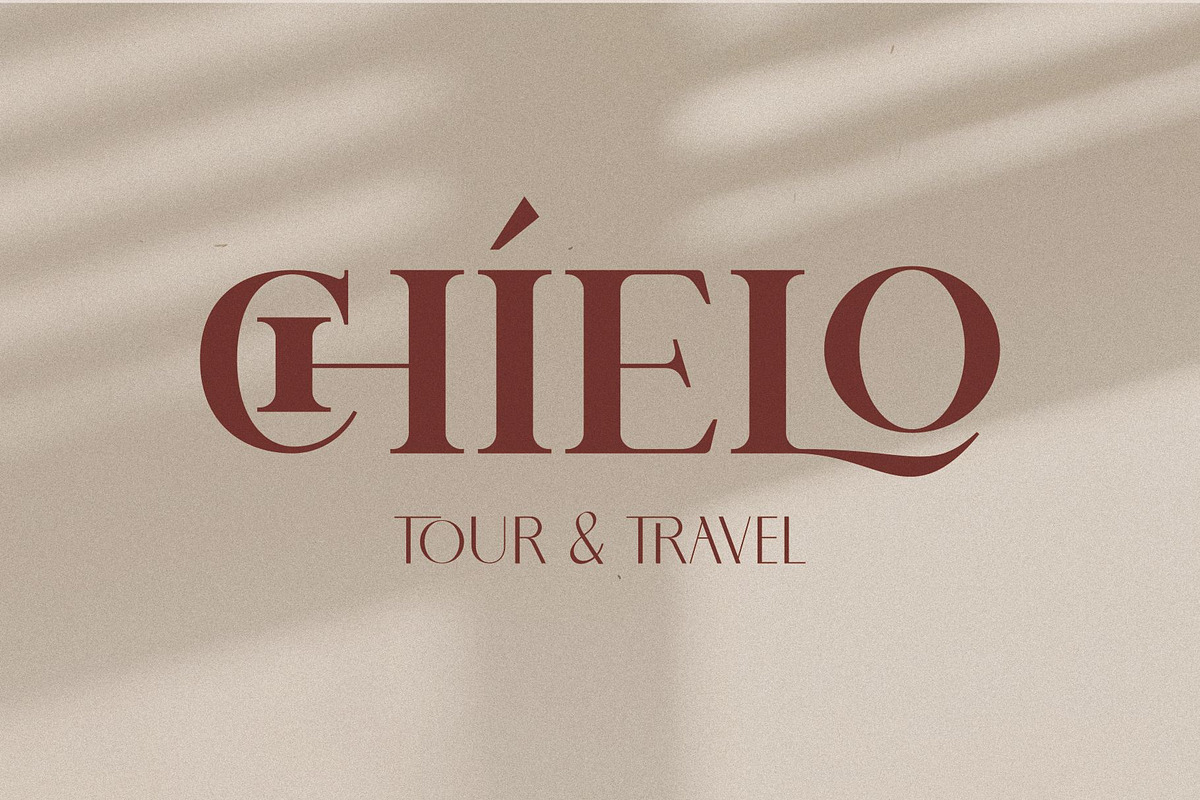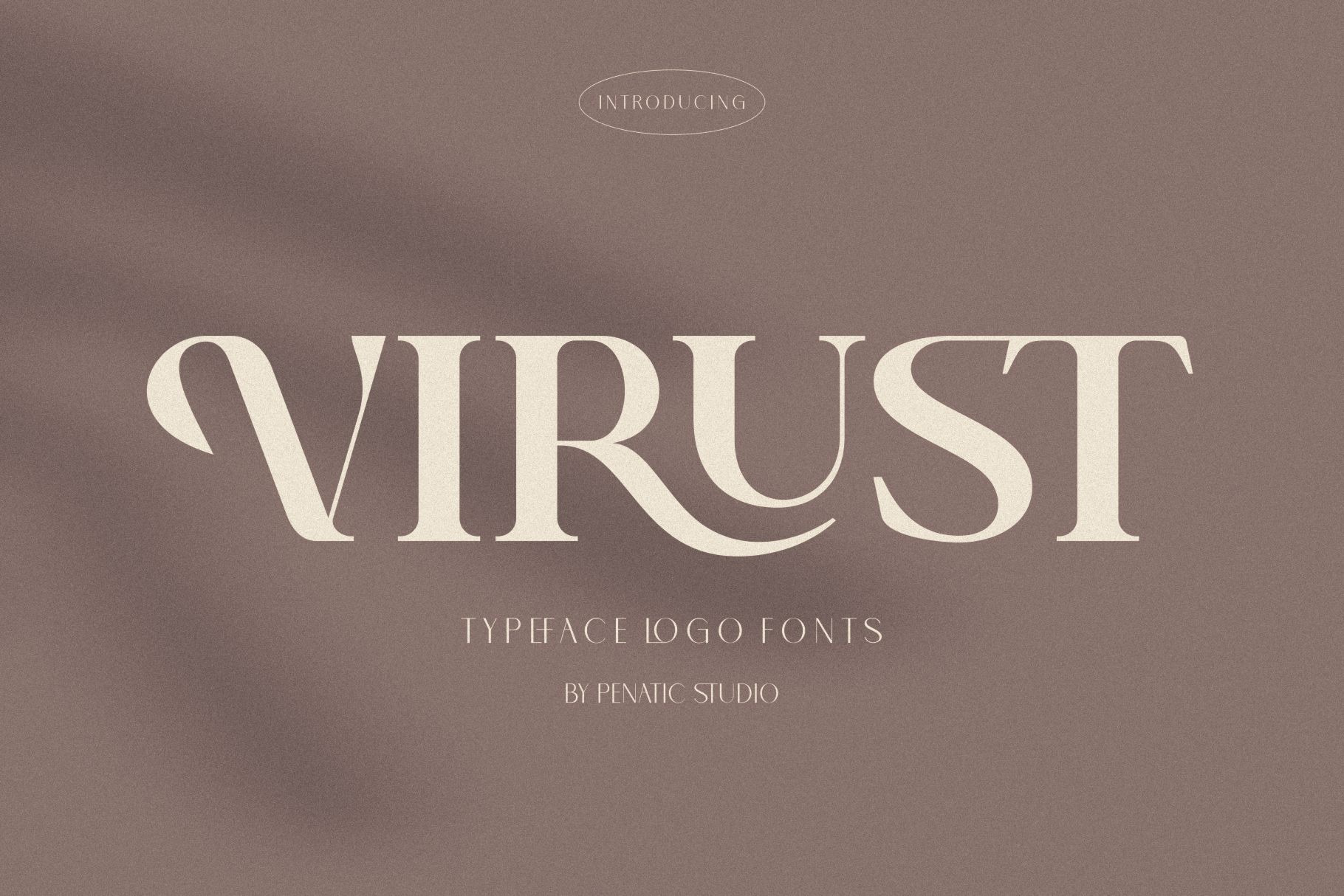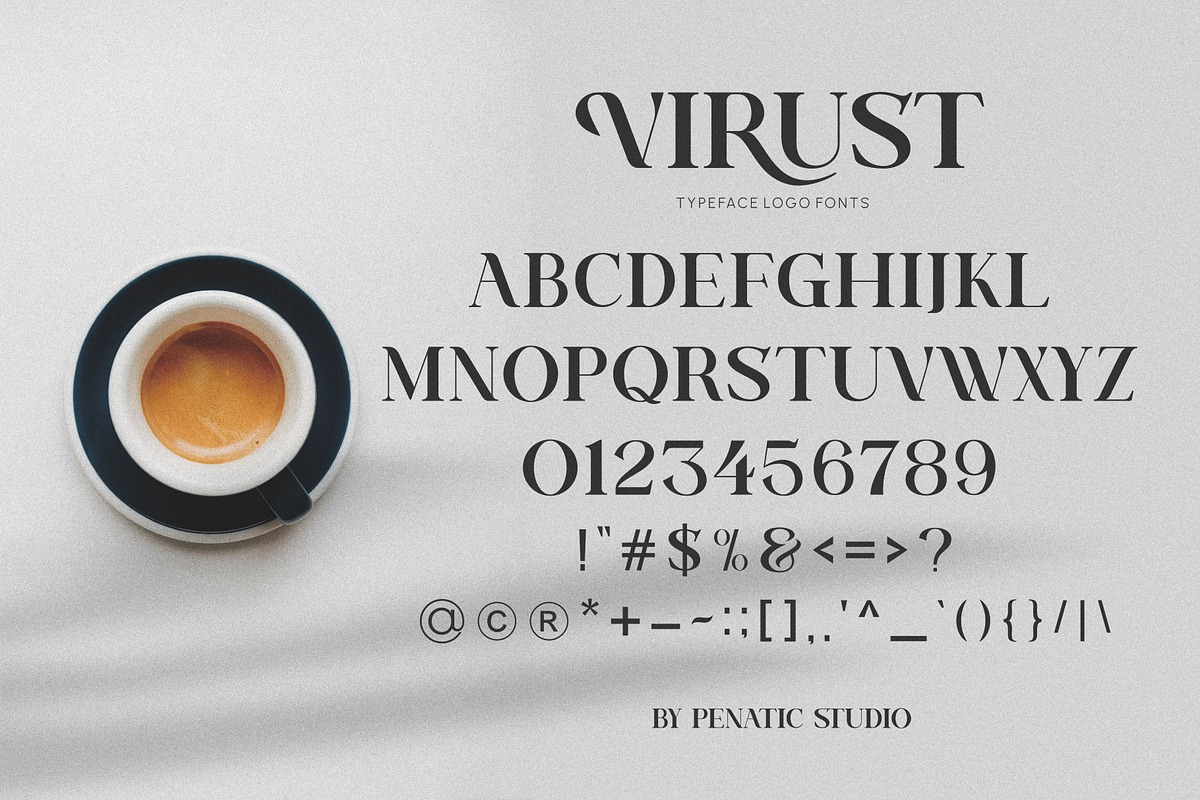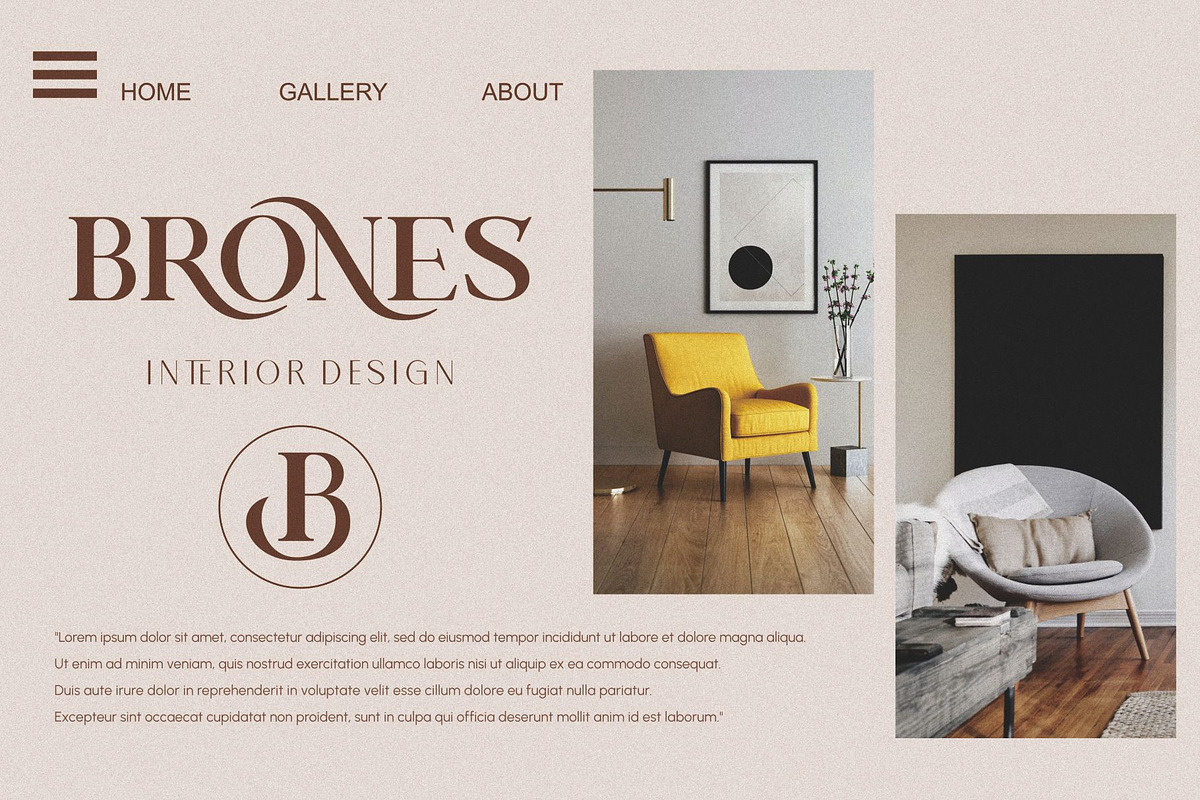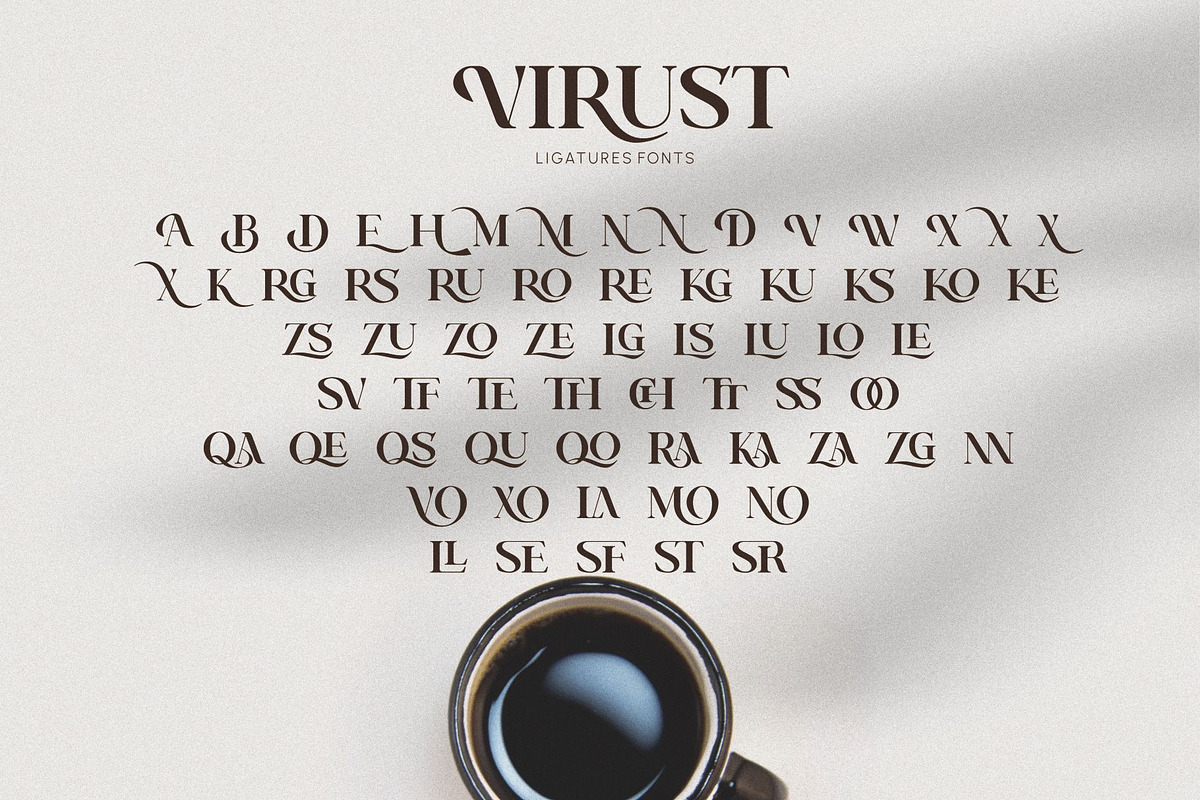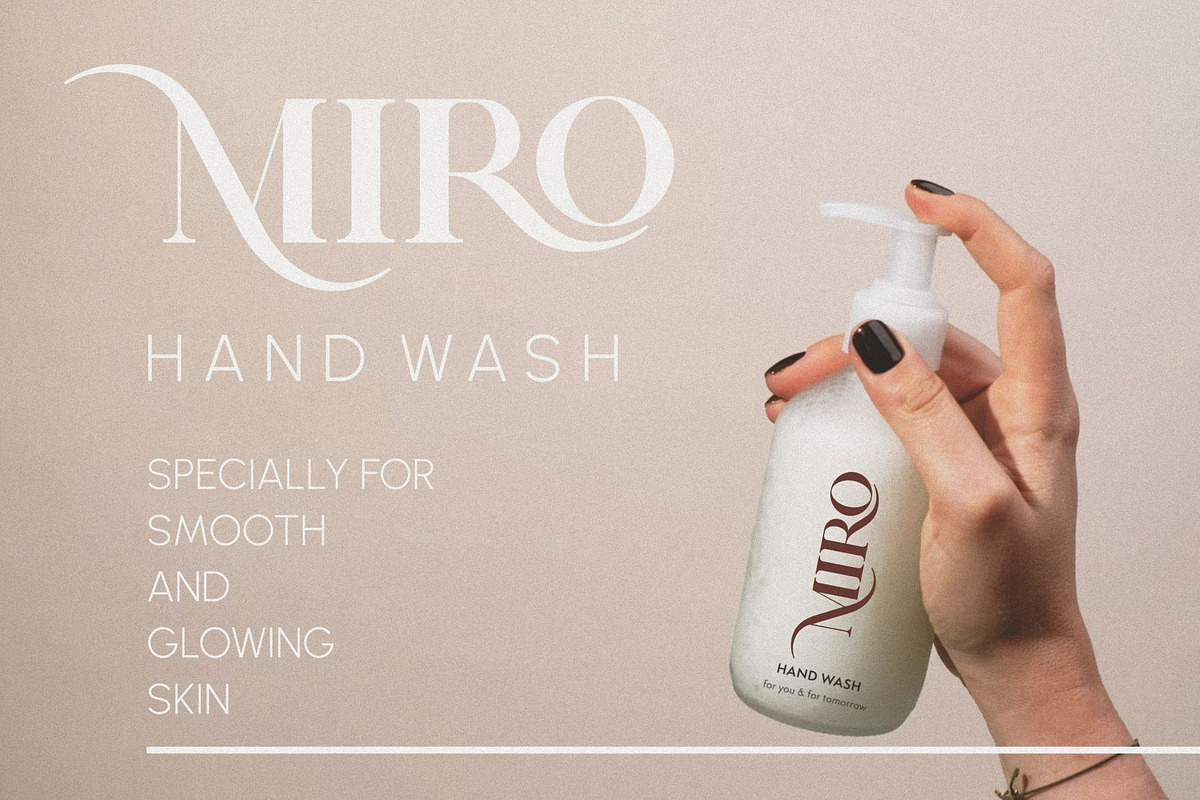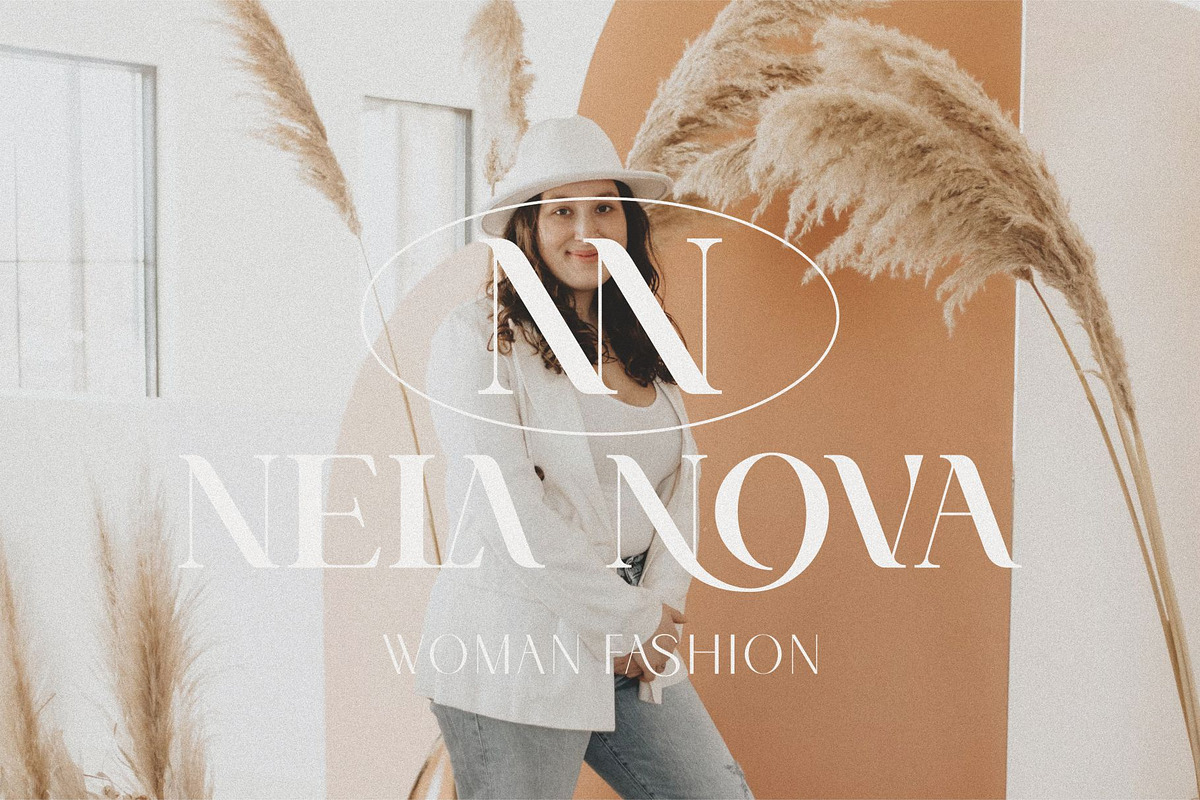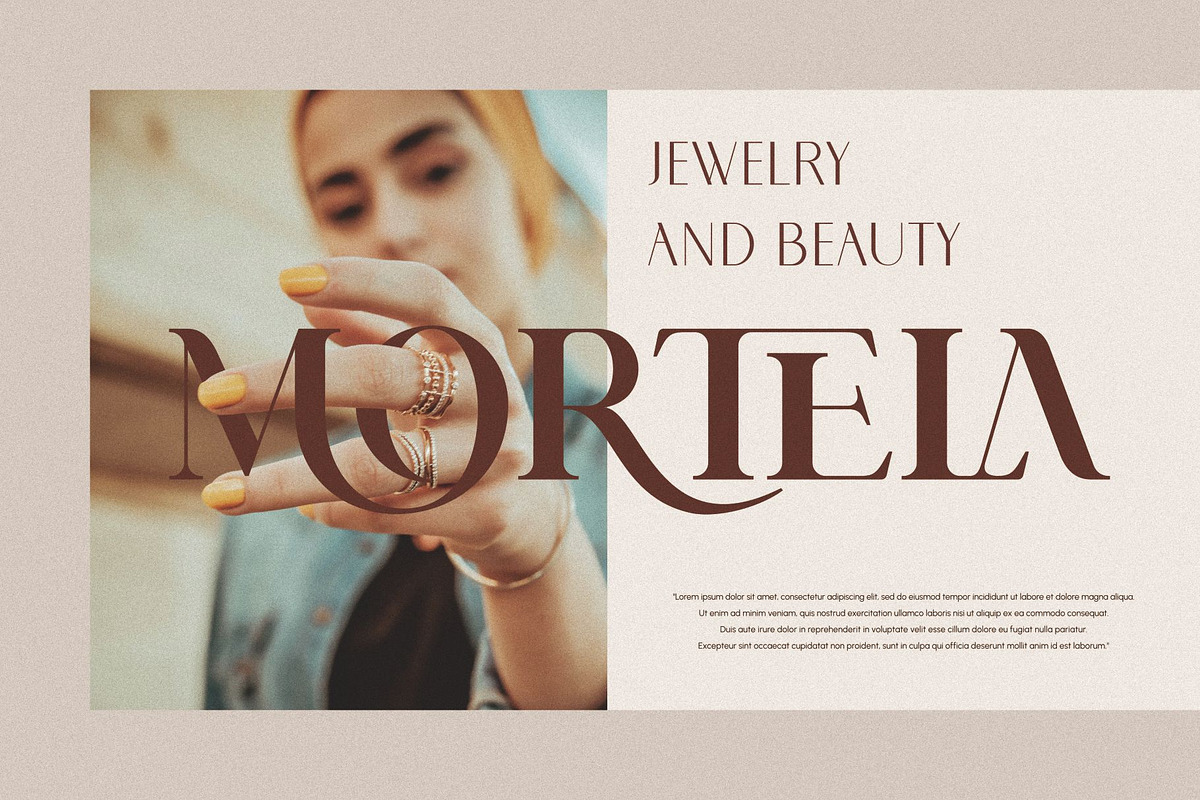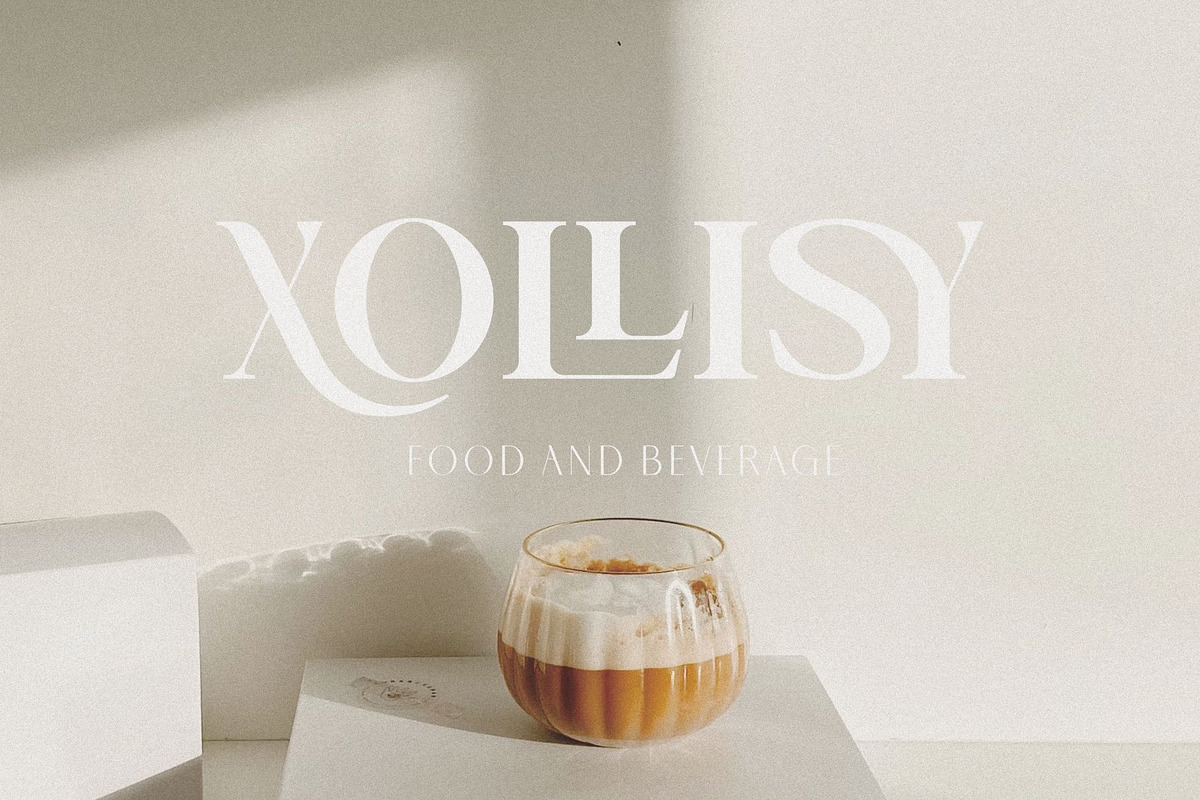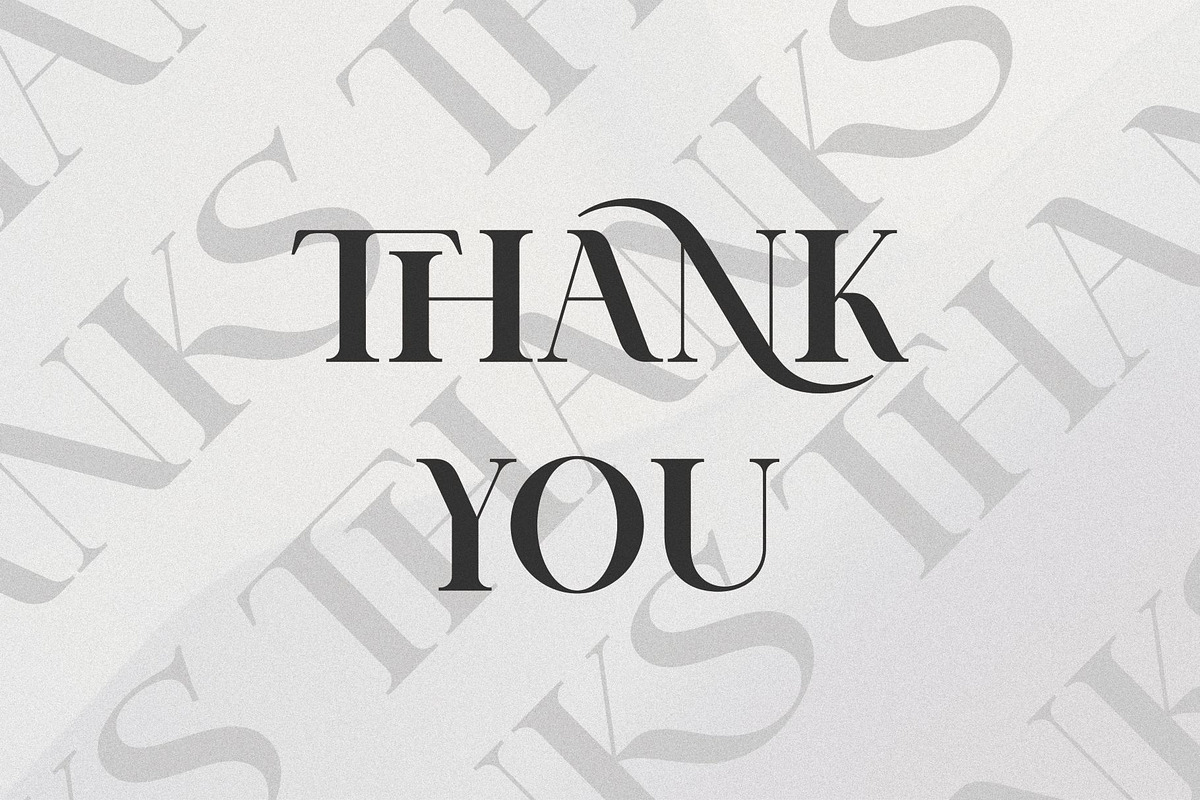
Virust _ Serif Ligature Font
VIRUST _ Serif Ligature Font is an excellent typeface for your logo and brand identity. Virust is designed to be smooth and slightly thick to look tough and able to stand on its own, with lots of alternatives and ligatures.
~ Unique Fonts Ligatures and Alternate